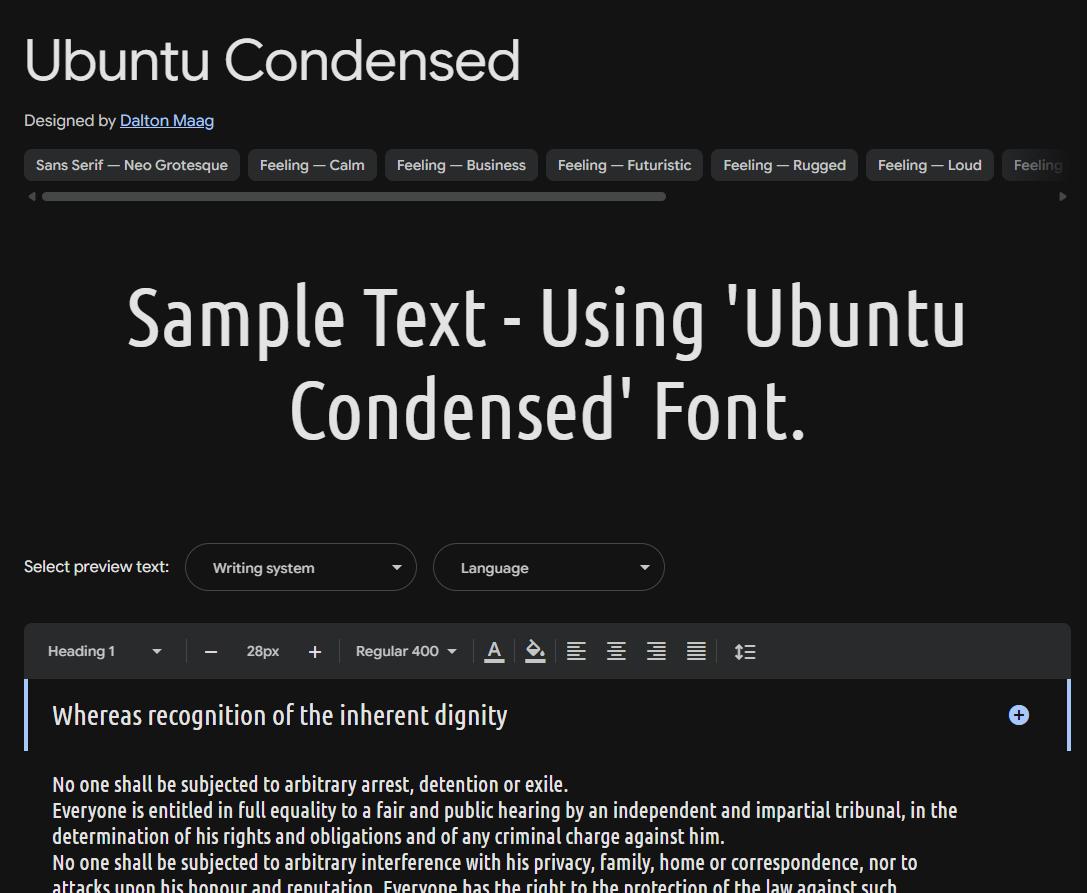
Engineered by Dalton Maag as a singular OpenType weight, Ubuntu Condensed functions as a precision-tuned humanist sans-serif optimized for high-density digital interfaces where screen real estate is at a premium. This specific iteration leverages a narrow glyph width and tightened tracking to enhance horizontal efficiency, yet maintains the signature rounded terminals and expansive x-height that define the Canonical-commissioned aesthetic. By integrating sophisticated hinting for crisp rasterization and maintaining monolinear stroke contrast, the typeface ensures legibility within constrained vertical metrics, offering a technical solution for complex information hierarchies that require a balance between condensed geometry and the organic warmth of its parent font family.
The Ubuntu Condensed typeface, a precision-engineered Neo-Grotesque Sans Serif designed by Dalton Maag, functions as a high-performance typographic tool that balances a stiff, business-oriented structure with an inherently calm and sincere humanist warmth. By utilizing a narrow aperture and optimized x-height, the family delivers a rugged and active aesthetic ideal for space-constrained mobile interfaces, while its signature rounded terminals infuse the geometry with a happy, approachable personality that feels both vintage in its mechanical reliability and futuristic in its digital-first clarity. This unique synthesis allows designers to project a loud, authoritative voice through dense verticality without sacrificing the sincere, tranquil rhythm required for long-form readability, effectively bridging the gap between professional enterprise utility and a vibrant, modern user experience.
While Ubuntu Condensed excels in space-constrained digital interfaces, its singular style availability and distinctive humanist-geometric hybridity make it fundamentally unsuitable for high-density editorial environments and accessibility-critical legal documentation. The absence of a comprehensive weight scale-offering only a single regular variant-precludes the establishment of a robust typographic hierarchy, which is essential for complex information architecture where emphasis through bold or italic variations is non-negotiable. Furthermore, the font's narrow apertures and tight default tracking, originally optimized for specific Ubuntu mobile telemetry, suffer from significantly decreased legibility in long-form body text where compressed horizontal metrics can lead to visual fatigue and "river" artifacts. In the context of luxury branding or high-contrast display typography, the uniform stroke weight and specific x-height lack the sophisticated optical sizing and varied stroke modulation required to convey prestige, ultimately failing the rigorous WCAG readability benchmarks necessary for inclusive, multi-layered digital design.
Ubuntu Condensed is generally not recommended for extensive body copy because its narrow proportions can cause eye strain during prolonged reading. The reduced glyph width and tight apertures significantly lower the average character-per-line count, potentially disrupting the optimal saccadic movement required for high reading comprehension.
It pairs effectively with clean sans-serifs like Open Sans or robust geometric fonts like Montserrat to provide a clear typographic hierarchy. Using a font with a larger x-height and wider tracking for the body text creates a functional visual contrast against the condensed verticality of Ubuntu's structural rhythm.
This typeface excels in restricted horizontal environments by allowing more characters to fit within a single line without breaking the layout. Its optimized width-to-height ratio maximizes the spatial efficiency of the viewport, maintaining legibility even when sidebars are constrained to widths under 200 pixels.
Increasing the letter-spacing is highly beneficial when applying all-caps styling to prevent characters from appearing cluttered or illegible. Applying a positive tracking value of approximately 5% to 10% compensates for the condensed counters, enhancing the optical balance and improving word shape recognition.
Legibility tends to decrease at small sizes as the narrow letterforms can merge and lose their defining characteristics. Technical rendering at sizes below 12px often suffers from aliasing issues because the thin stroke weights and tight kerning pairs require high-resolution pixel grids to remain distinct.
It is an excellent choice for infographics where data visualization requires labeling multiple elements within a compact area. The font's high information density allows designers to pack more semantic data into localized clusters without sacrificing the overall aesthetic balance of the vector graphic.
Ubuntu Condensed can work for headings, though it may lack the visual impact and authority of heavier, wider display faces. When utilized as an H1 element, its distinctive spurless terminals and rounded curves offer a unique brand identity that deviates from standard neo-grotesque industrial styles.
The font's tall profile and narrow footprint necessitate careful adjustment of line-height to maintain a cohesive vertical flow. Due to its inherent verticality, designers should implement a baseline grid that accounts for the font's specific ascender and descender heights to prevent overlapping during tight leading scenarios.
It is highly effective for mobile UI where screen real estate is at a premium and horizontal overflow must be avoided. The typeface facilitates a higher character density per line, which reduces the need for truncated strings or excessive ellipsis in dynamic content areas.
This font performs well in print when used for labels, captions, or short instructional text where space is limited. Its crisp outlines translate well to high-DPI offset printing, provided the ink trap and stroke weight are monitored to avoid bleeding in high-contrast black-and-white compositions.